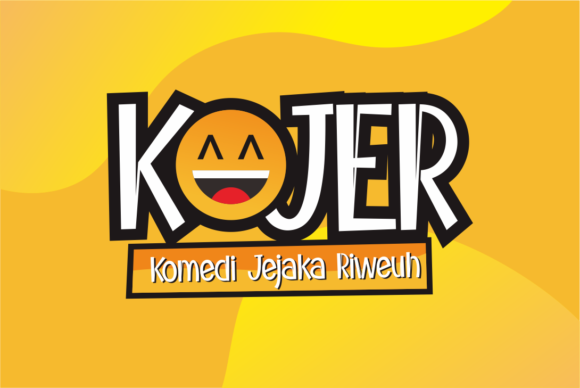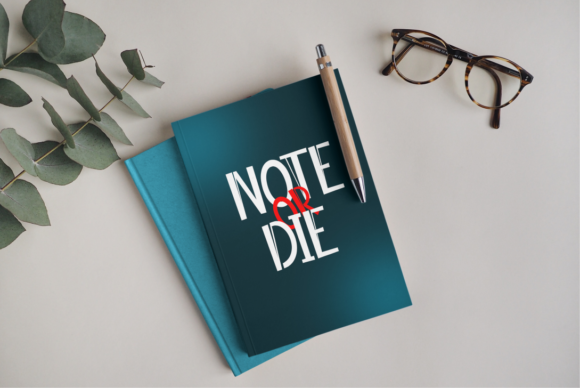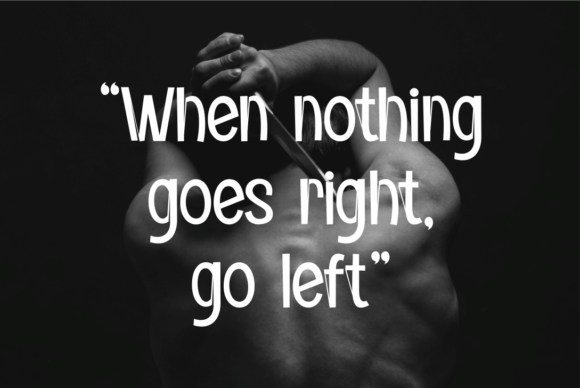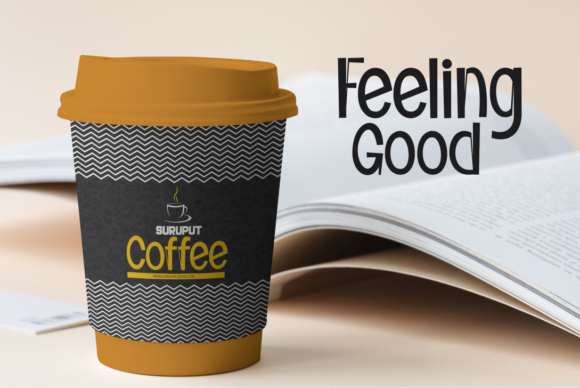
Introducing Andry Font: The Ultimate Display Font for Creative Projects
Are you tired of using the same old fonts for your design projects? Look no further than Andry Font, a simple yet stunning display font that’s perfect for a wide range of applications. In this article, we’ll take a closer look at Andry Font, its features, and how you can use it to elevate your designs.
What is Andry Font?
Andry Font is a modern display font designed to make a statement. With its clean lines, relaxed vibe, and high legibility, Andry is the perfect choice for designers and crafters looking for a font that can be used across various mediums, including web, print, moving images, and more.
As described, “Andry is a simple and relaxed display font. Whether it’s for web, print, moving images or anything else – Andry will look spectacular.” This font is designed to be versatile, making it an excellent addition to any designer’s toolkit.
Key Features of Andry Font
- Simple and Relaxed Design: Andry Font boasts a simple yet stylish design that’s perfect for creating visually appealing text.
- High Legibility: The font’s clean lines and relaxed vibe make it easy to read, even at smaller sizes.
- Versatile: Andry Font can be used across various mediums, including web, print, moving images, and more.
- Display Font: Andry is specifically designed as a display font, making it perfect for headlines, titles, and other attention-grabbing text.
Use Cases for Andry Font
Andry Font is an incredibly versatile font that can be used in a wide range of design projects. Here are some use cases to get you started:
- Web Design: Use Andry Font as a headline font for your website, or as a display font for your blog posts.
- Print Design: Andry Font is perfect for print materials like brochures, posters, and business cards.
- Moving Images: Use Andry Font in your video projects, such as intros, outros, and title sequences.
- Crafting and DIY Projects: Andry Font can be used for crafting and DIY projects, such as making signs, banners, and other decorative items.
Tips for Using Andry Font
Here are some tips to help you get the most out of Andry Font:
- Use it as a Display Font: Andry Font is designed to be used as a display font, so use it to grab attention and make a statement.
- Experiment with Font Sizes: Andry Font looks great at various font sizes, so experiment to find the perfect size for your project.
- Pair it with Other Fonts: Andry Font pairs well with other fonts, so don’t be afraid to experiment with different font combinations.
In conclusion, Andry Font is a simple yet stunning display font that’s perfect for designers and crafters looking for a versatile font that can be used across various mediums. With its clean lines, relaxed vibe, and high legibility, Andry Font is sure to elevate your designs and make them stand out. So why not give Andry Font a try today and see the difference it can make in your design projects?